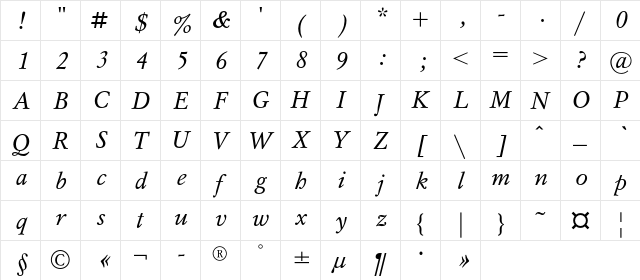
MyslC Italic
Design Context for MyslC Typeface
MyslC is a composed and adaptable typeface that performs quietly and consistently across a wide range of design contexts. Its italic angle brings a sense of urgency and motion to the letterforms.
Pro Tip: Use MyslC for emphasis, pull quotes, and subheadings where its slanted energy can add rhythm to the layout.